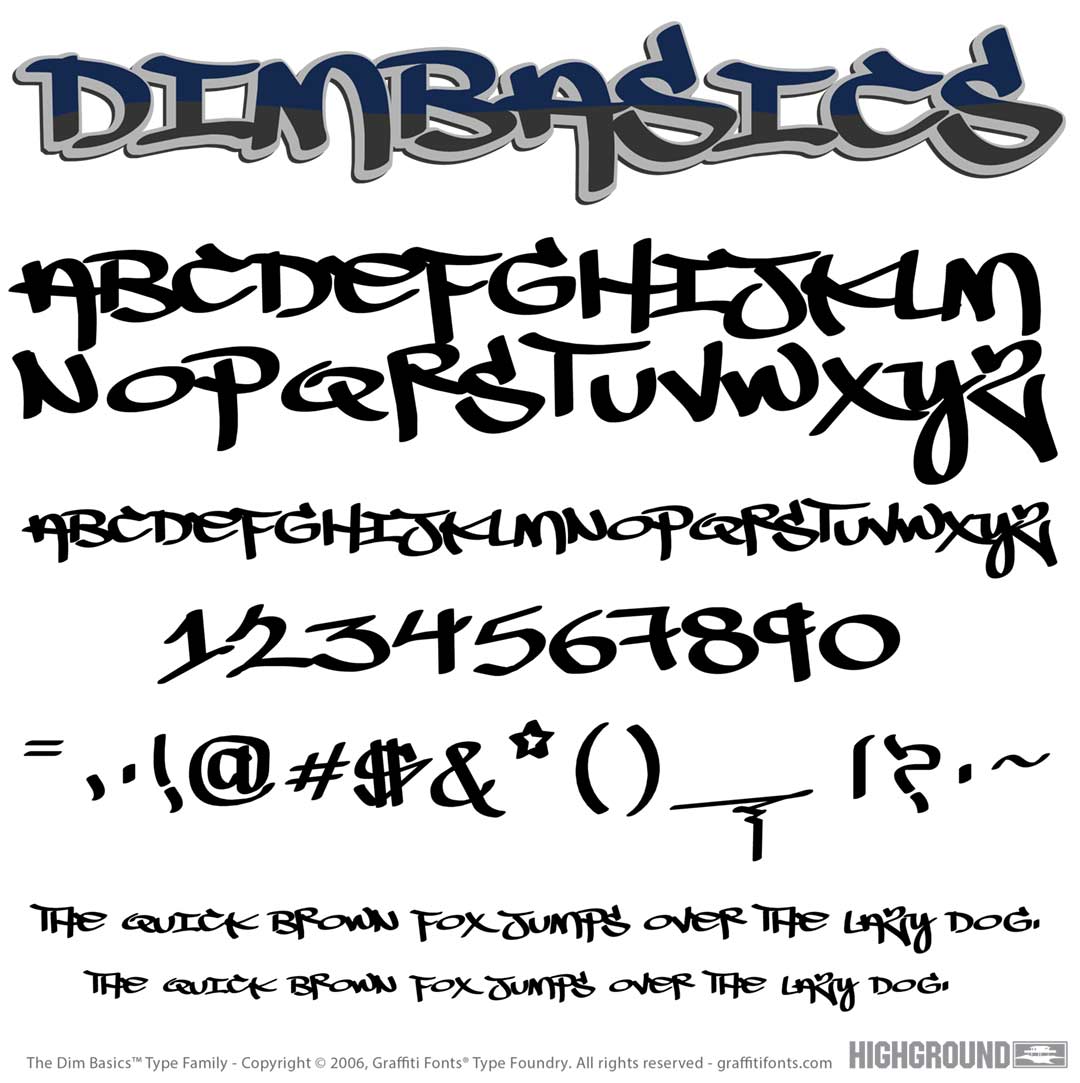
Dim Basics Font
Dim Basics Title Image
Dim Basics Graffiti Alphabet
Dim Basics Graffiti Font Family
This smooth legible style was digitally rendered from a series of captions & alphabets written with a pilot marker. 88 total characters were added to the font from The artist "Dim One" A.K.A. "Triangulum" of San Jose California. Dim has been a member of FTA, SPD and other bay area crews. This typeface was used prominently in the Music video for "Broken People" by Logic & Rag & Bone Man.